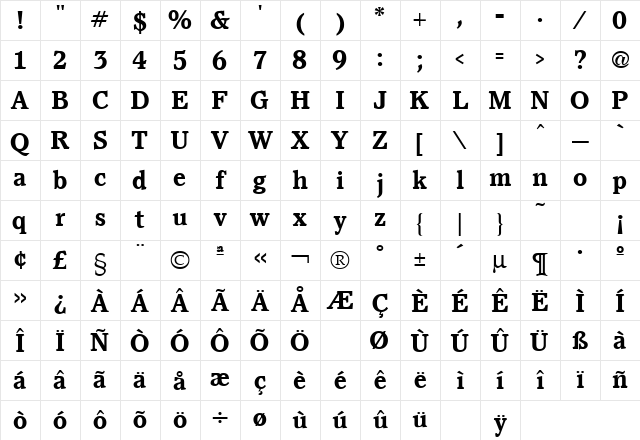
Pacella Bold Free Font
Pacella Bold
Design Context for Pacella
Pacella is a composed and adaptable typeface that performs quietly and consistently across a wide range of design contexts. Its bold stroke weight gives it real presence on the page.